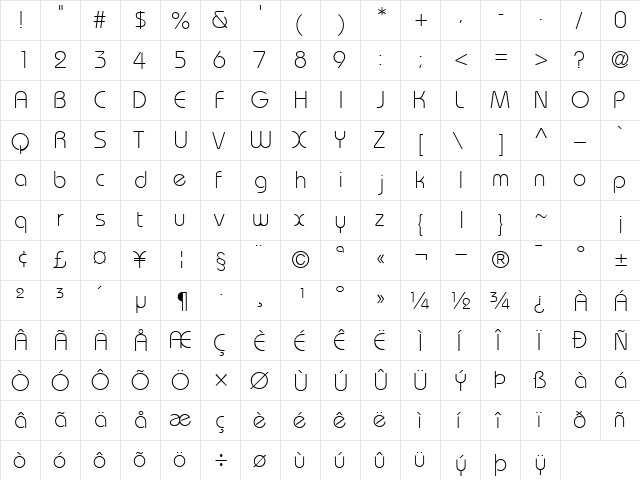
DynameLightSSK Regular
Design Context for DynameLightSSK Typeface
DynameLightSSK offers clean, dependable letterforms without strong stylistic allegiance, making it a practical choice for designers who need flexibility. Its slender proportions lend an understated elegance to any composition.